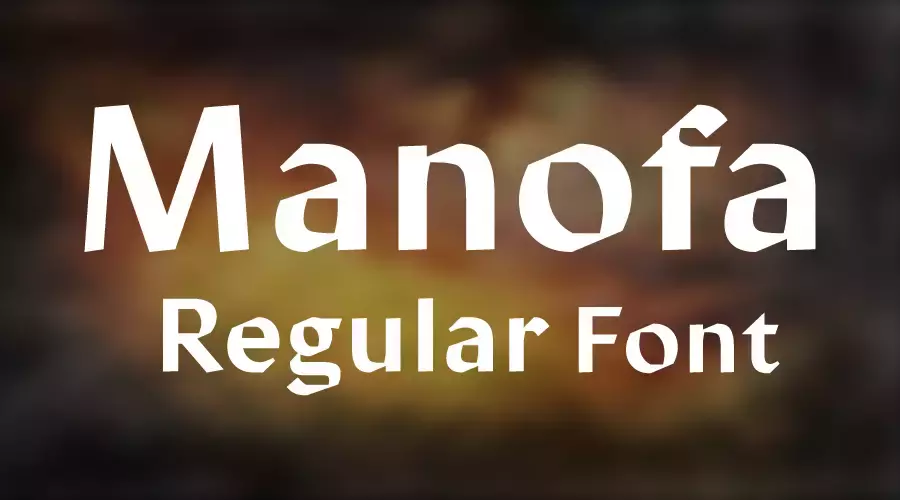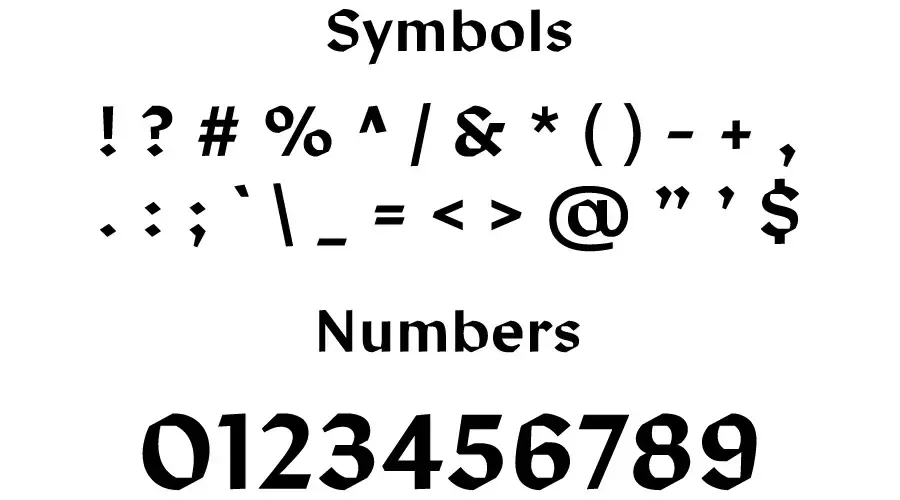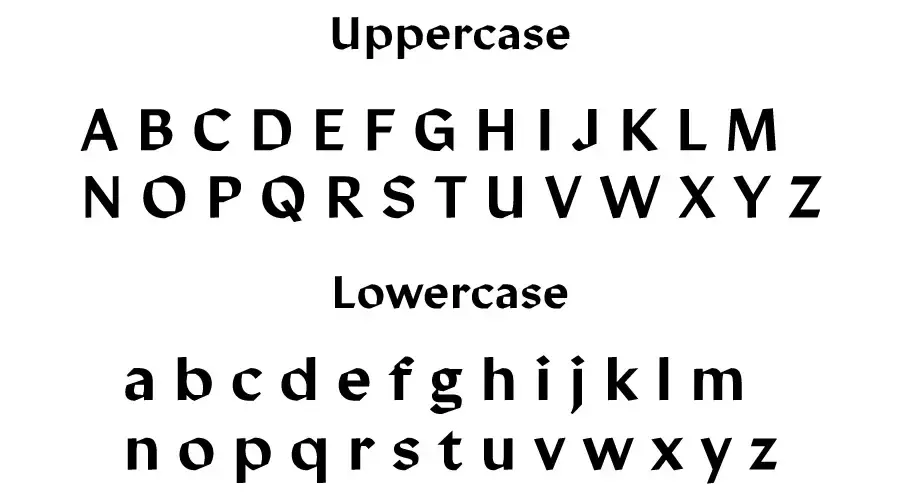
Manofa is a calligraphic sans-serif typeface that is free to use and designed by Mariya V. Pigoulevskaya. It was first introduced in 2017. It draws inspiration from Warren Chappell’s Lydian and Bosma’s experiments with the shape and form of the letter “O.” This results in a contemporary, sharp, and sculptural design that is distinct and recognizable.
This font is suitable for fun designs, logos, and branding projects. The Manofa font family includes eight variations: Manofa Bold, Italic, Condensed, Light, and Medium. It also includes two widths, alternative characters, and OpenType features like ligatures, stylistic alternates, and fractions.
Manofa is an excellent choice for various display uses because of its unique and flexible design. This includes branding, advertising, editorial design, packaging, and more. Its calligraphic style and sculptural forms give it a unique personality and make it stand out from other sans-serif typefaces.
| Font Family Name | Manofa |
| Style | Sans-serif |
| Designer | Mariya Pigoulevskaya |